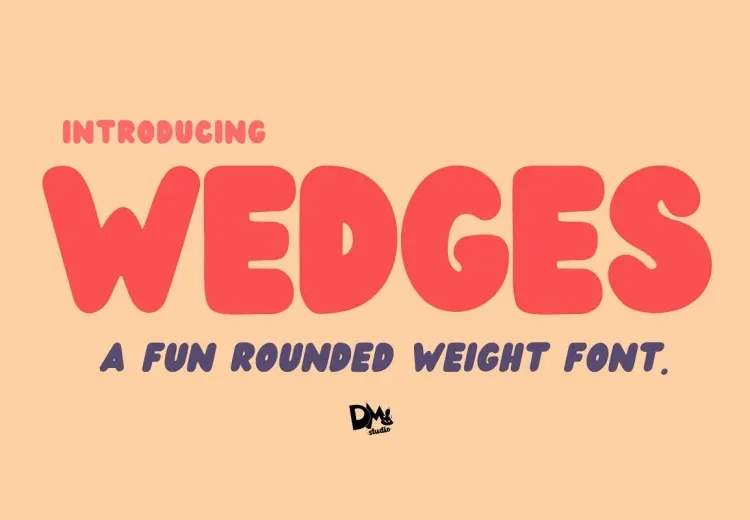
Wedges Font
Wedges is an elegant yet playful round display font designed to bring both personality and charm to your creative projects. With its soft, round letterforms and warm, inviting character, this font adds a touch of fun and sophistication to any design. Whether you’re working on packaging, posters, children’s books, or other artistic pursuits, Wedges will infuse your designs with delightful energy.
This font’s cheerful appearance makes it ideal for projects that require a balance of playfulness and elegance. Wedges is perfect for designs that need a unique, approachable aesthetic, offering both readability and character in every use. Whether for commercial products or personal artwork, it elevates any design with a friendly yet stylish flair.
From invitations to promotional material, Wedges can adapt to a wide range of creative needs, bringing life to headlines, logos, and more. Its round shapes make it visually engaging, while its fun personality ensures it stands out from the crowd.